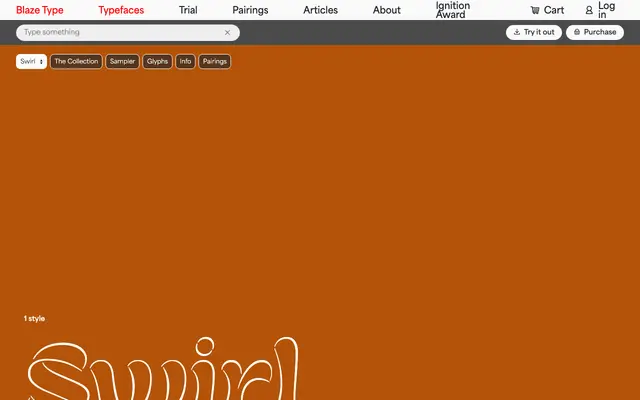
Swirl
A single-weight outline display face by Đuc X Cao, drawn from the movement of a flat brush and reduced to an airy skeletal form.
Designed during study at Type West, the face began as a solid brush lettering study before being stripped back to its outlines, producing letterforms that are tapered at mid-strokes and flared at the ends. The result reads as bold in colour but light in texture, making it well suited to large headlines, book covers and packaging where a touch of calligraphic grace is wanted. Only one style exists, so its use case is fairly narrow, but within that register it performs with personality.
A single-weight outline display typeface derived from flat brush letterforms, with flared stroke ends and rounded forms; clearly intended for large-scale display use rather than text setting.